List Of 3D Shadow Fonts Free Download 2022. Web plaquette 3d shadow is a font from the family of plaquette, the classifications type of plaquette 3d shadow is decorative, display font type. Web frontage is a charming layered type system with endless design possibilities using different combinations of fonts and colors.
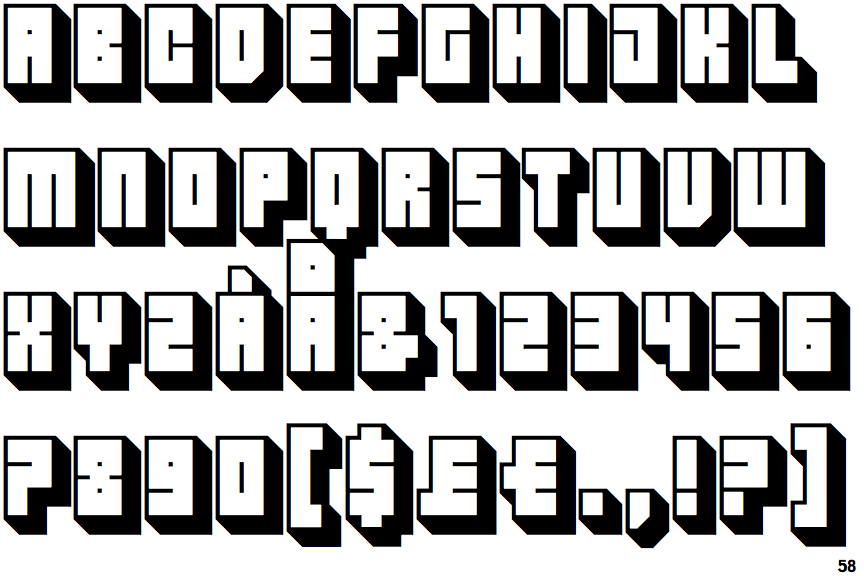
Achieve A Realistic 3D Effect By Adding.